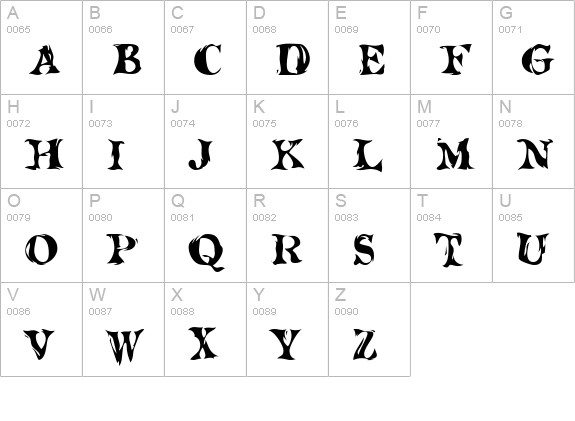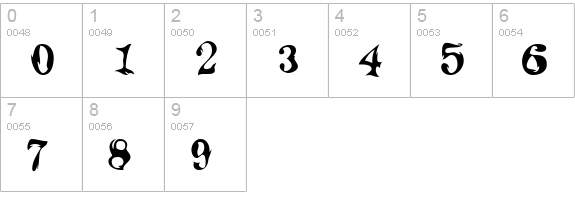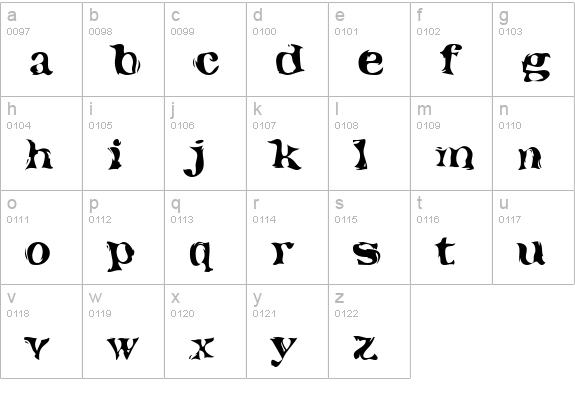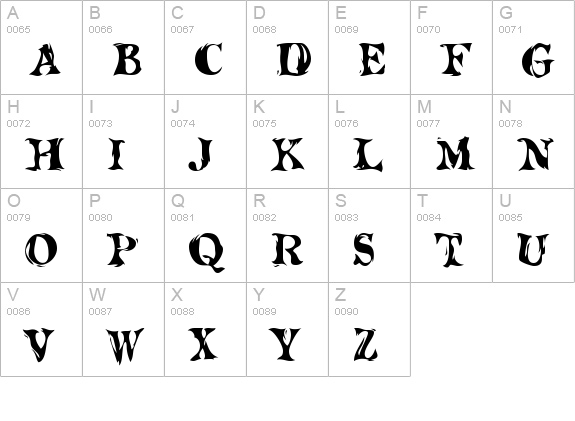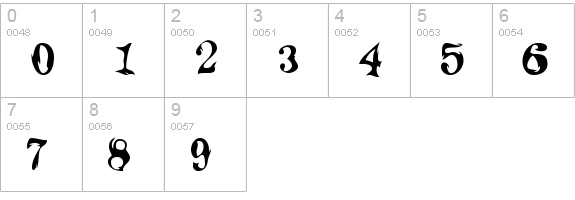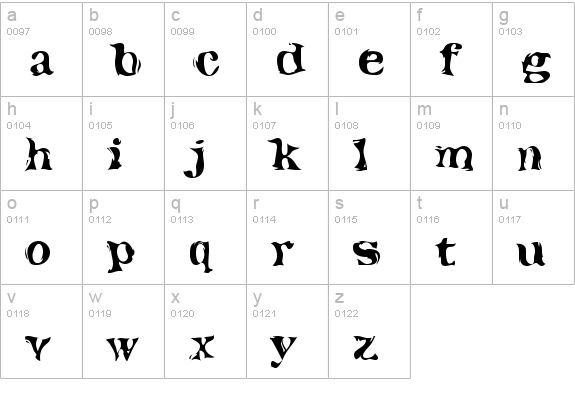
Toxic Font Details
Introducing Toxic font, a mesmerizing display typeface that exudes an aura of boldness and edginess. With its unique and eye-catching design, Toxic font is sure to make a striking impression on any creative project. This captivating font features sharp, intricate lines that create a sense of movement and energy, perfectly reflecting its name. Its distinctive letterforms are infused with a slightly toxic touch, adding a touch of intrigue and mystery to your designs. Toxic font is ideal for a range of creative projects, including logos, headlines, posters, album covers, and more. Its versatility allows it to be used in a variety of styles, from modern and futuristic to grunge and urban. And the best part? Toxic font is freely available to download at FontsMarket.com. Yes, you read that right - this stunning font can be yours at absolutely no cost. Simply head over to FontsMarket.com, and with just a few clicks, you can enhance your design arsenal with this captivating typeface. So, don't miss out on the opportunity to add a touch of toxicity to your designs. Download Toxic font today and let your creativity take center stage.